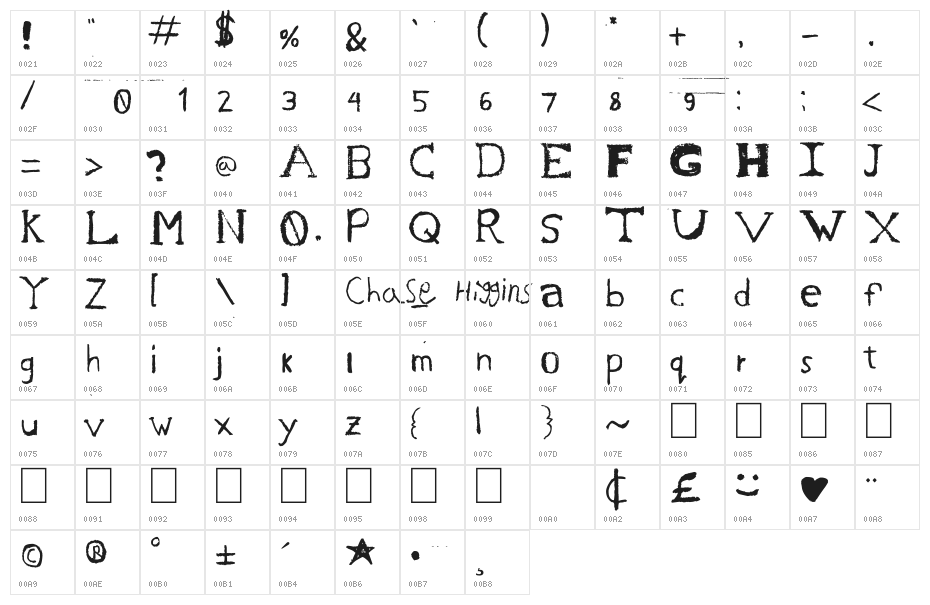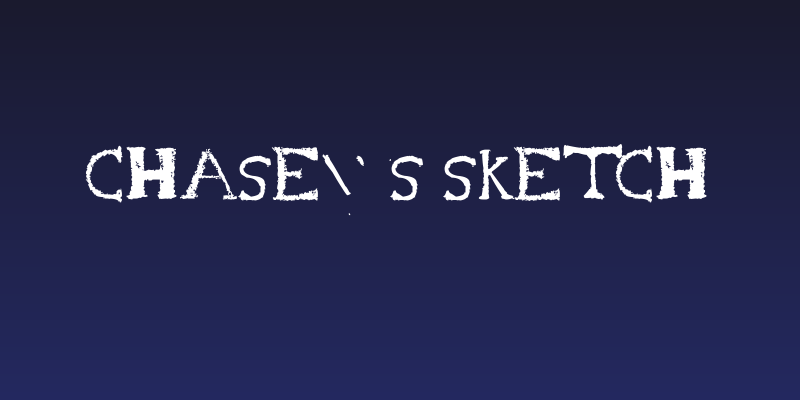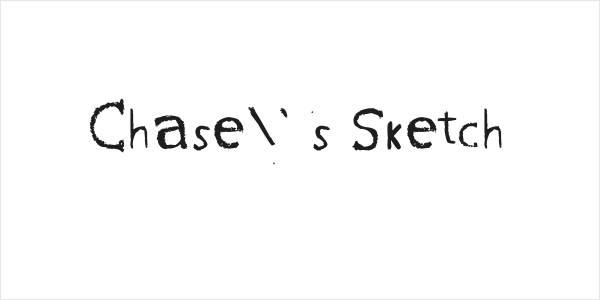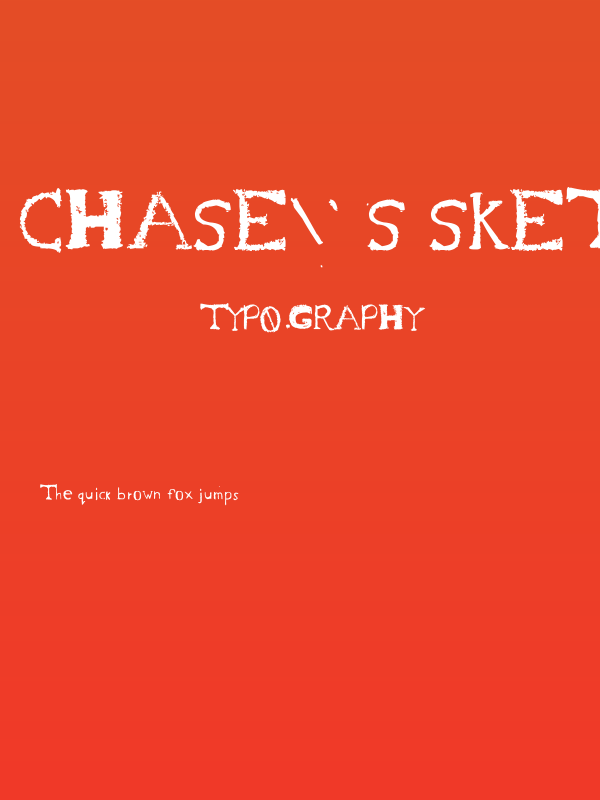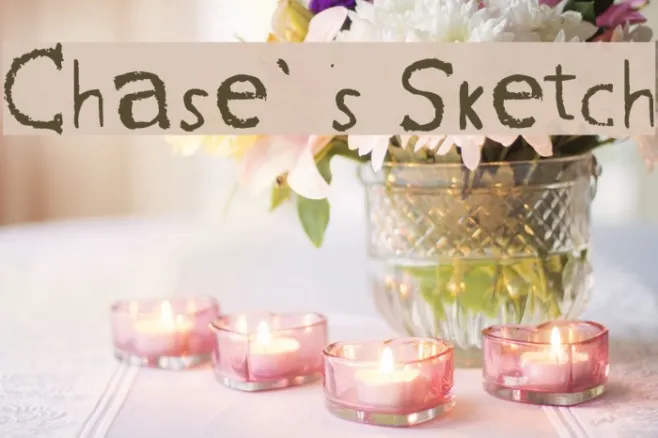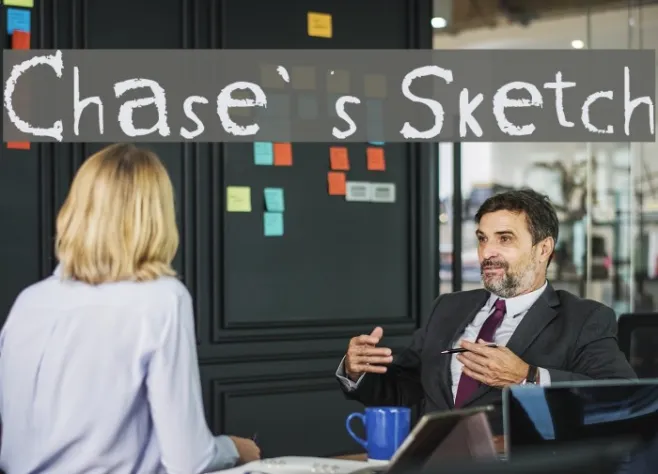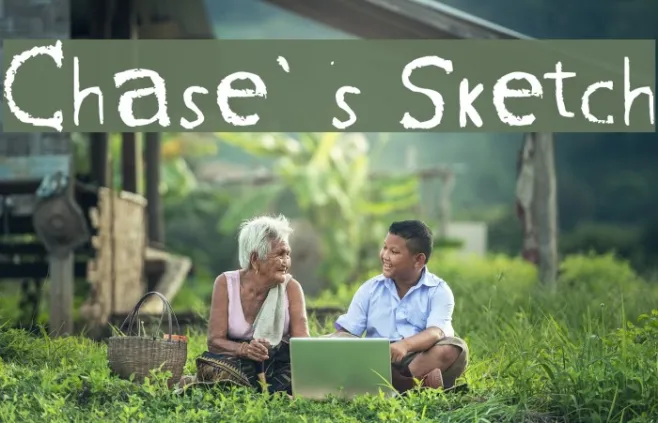
Chase's Sketch Font
Chase's Sketch Description
This font features a distinctive hand-drawn style with a sketch-like appearance, giving it a raw and artistic feel. The characters are unevenly weighted, with some letters appearing bolder than others, adding to its unique charm. The edges are rough and irregular, mimicking the look of a pencil or charcoal sketch. This font captures an organic and spontaneous aesthetic, making it ideal for creative projects that require a personal touch. The uppercase and lowercase letters maintain a consistent style, while the numbers and special characters complement the overall design. Its imperfect lines and varied stroke thickness contribute to its artistic and expressive nature.
| Overall Style | Artistic, Handcrafted |
| Use Case | Headlines, Posters, Artistic Designs |
| Proposed Projects | Ideal for artistic projects, posters, album covers, and any design needing a personal, handcrafted touch. |